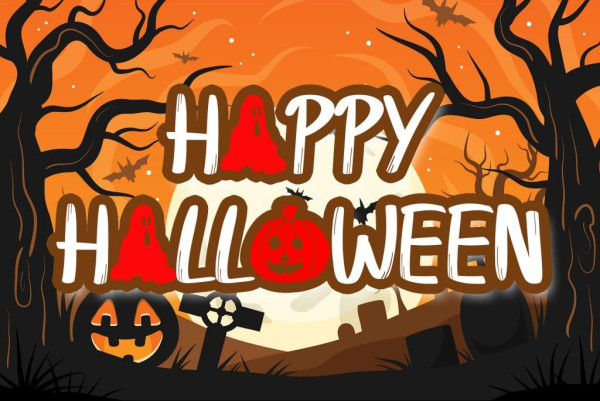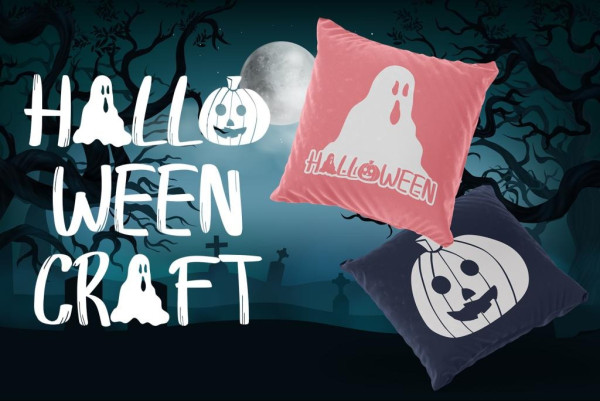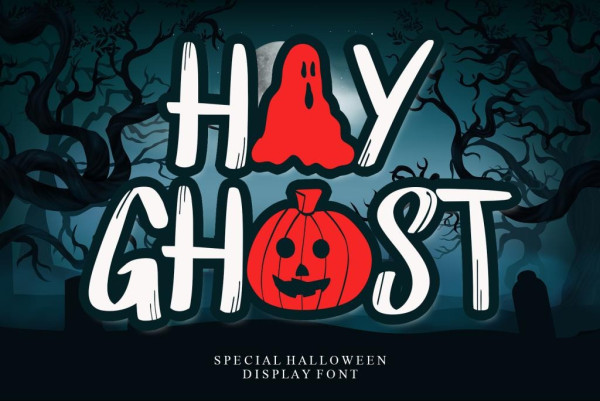
Hay Ghost Font
Hay Ghost Font, is a modern and eerie decorative font. It’s great for crafters and designers. Compatible with tools such as Photoshop and Silhouette design studio. Its unique characters can make it great for Halloween.